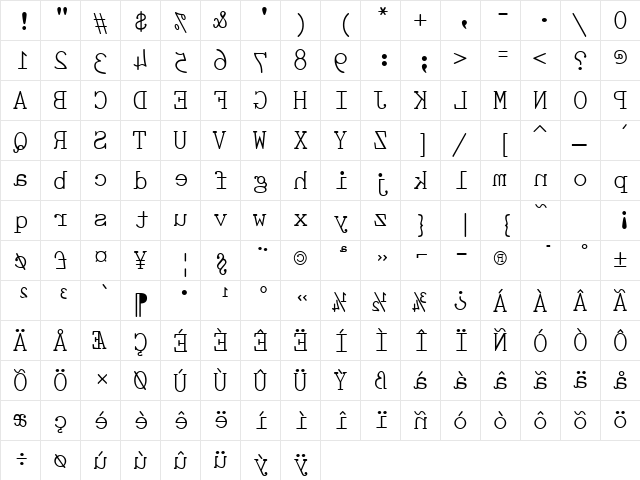
Sdrawkcab Regular
Design Context for Sdrawkcab Typeface
Sdrawkcab takes a measured approach to typography — its balanced proportions and neutral character make it a reliable workhorse for both digital and print work.